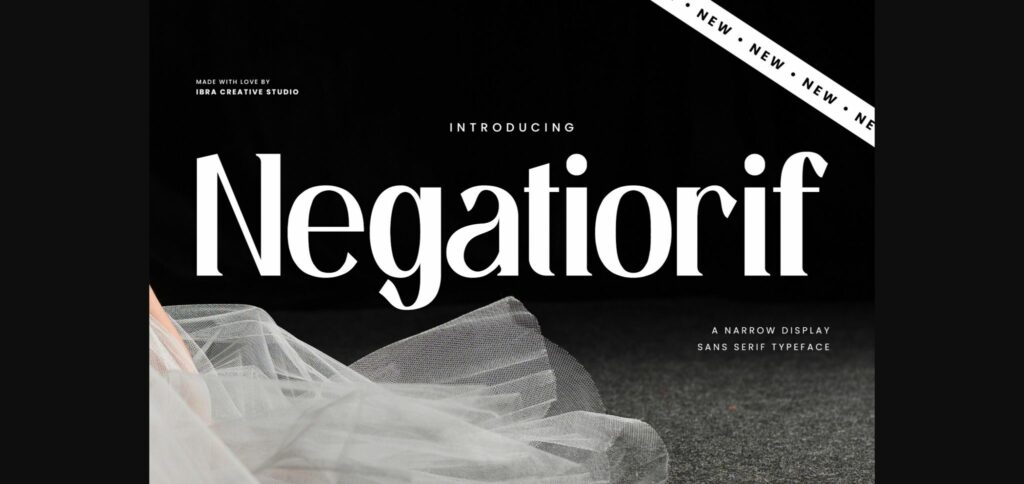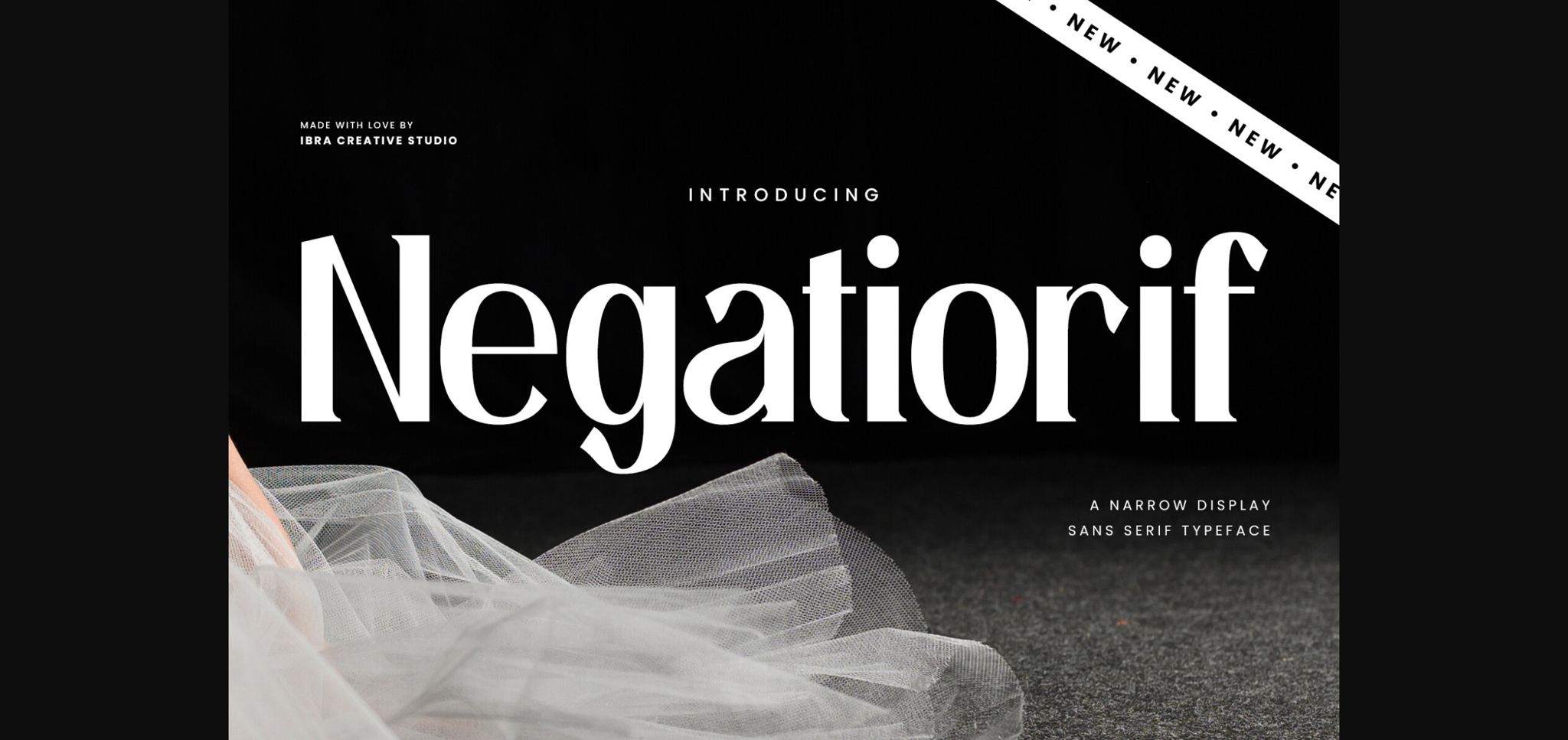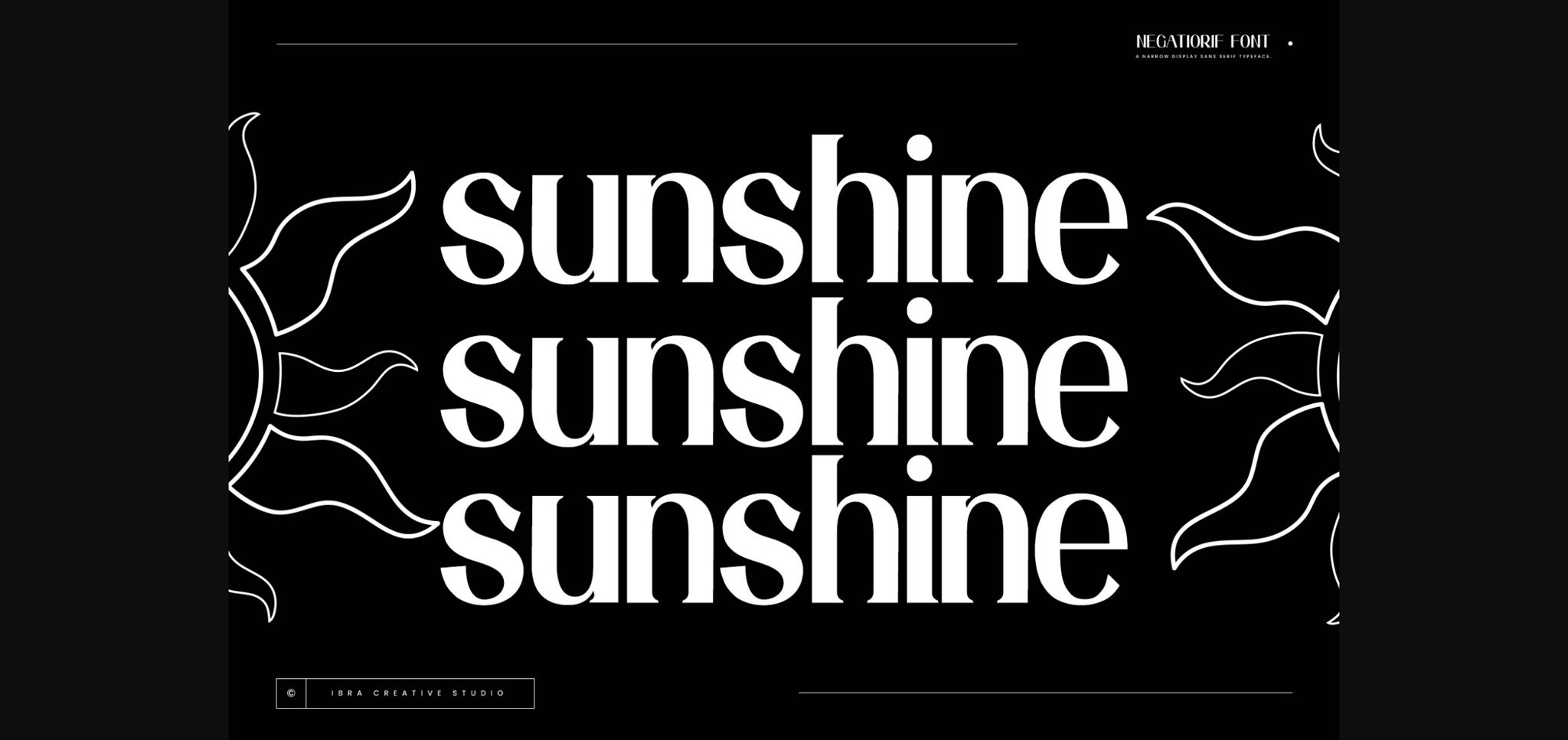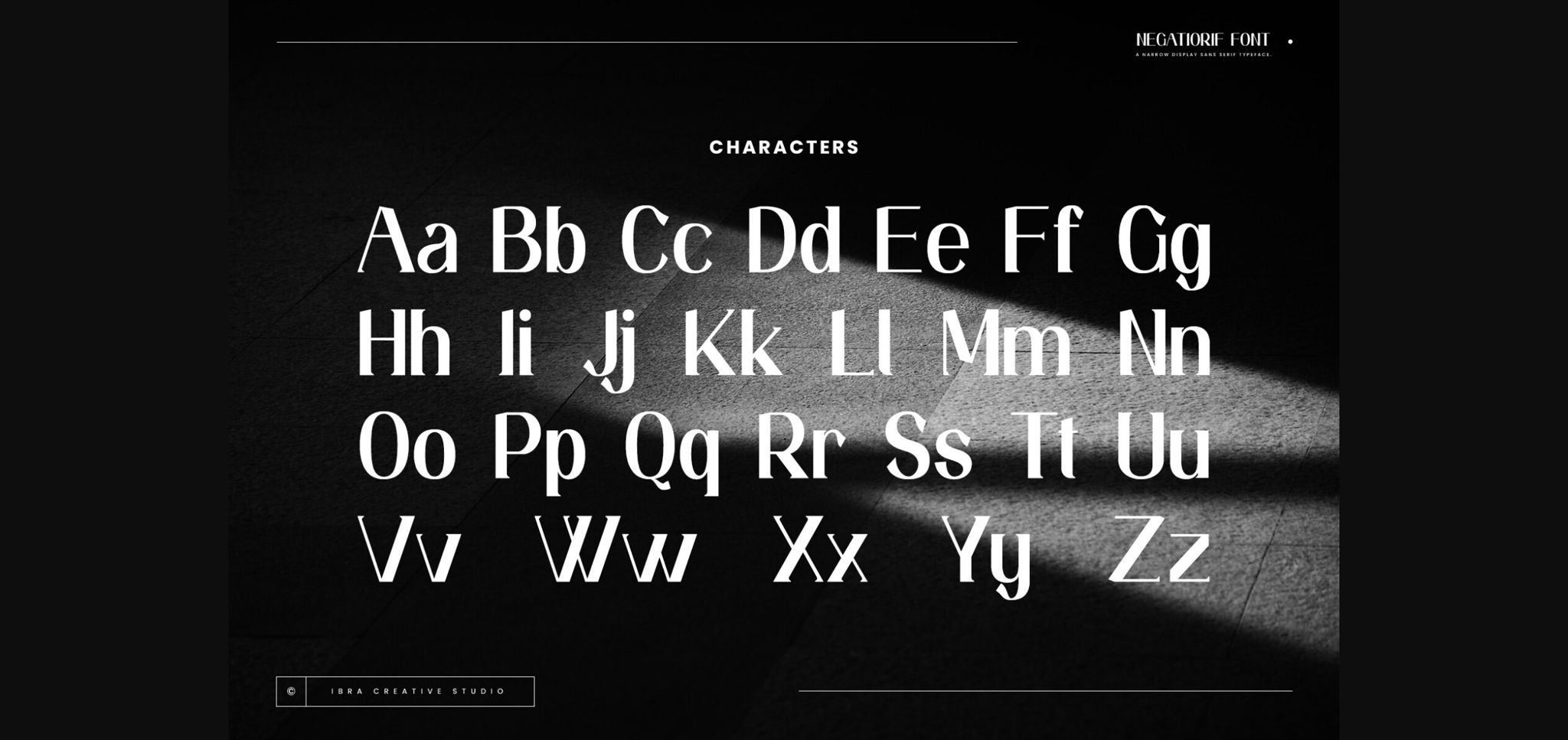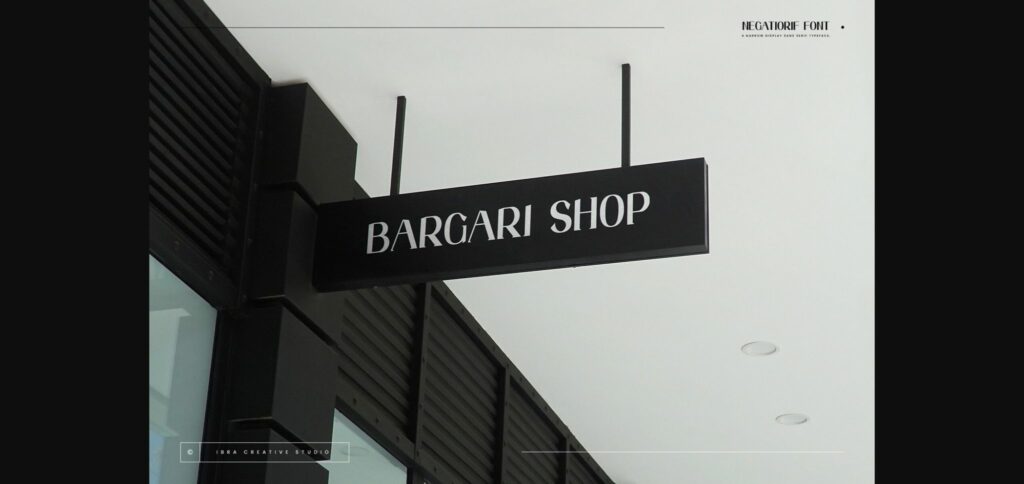
About Negatiorif Font
Negatiorif, a narrow display sans serif typeface, epitomizes sophistication and modernity in its sleek design. The font’s slender proportions lend a distinctive and elegant touch to any project, making it an ideal choice for titles, headlines, and minimalist aesthetics. With clean lines and sharp angles, Negatiorif achieves a balance between contemporary refinement and readability. Its versatility shines in both digital and print mediums, commanding attention with its space-efficient characters and creating a visual impact that resonates with a sense of precision.